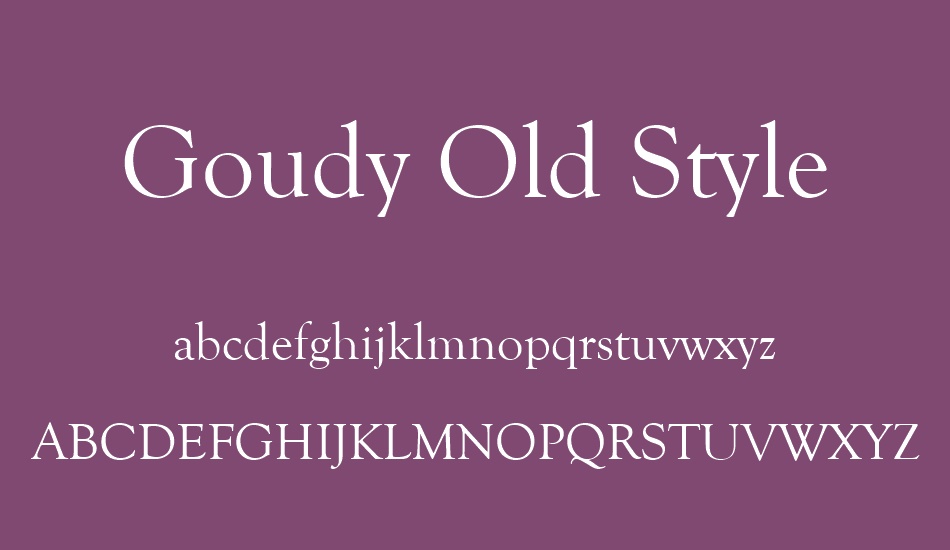
Goudy Old Style SH Font is perfect for classic book publishing, literary magazine layouts, traditional newspaper designs, vintage brand identities, heritage organization materials, classical music programs, antiquarian bookstore signage, historical society publications, prestigious award certificates, and timelessly elegant marketing communications.
Goudy Old Style SH Font is exciting because it preserves the masterful craftsmanship and timeless elegance of early 20th-century typographic excellence with its beautifully proportioned letterforms that echo the golden age of American type design and embody the scholarly refinement that defined quality publishing for generations. Its classically distinguished character design reflects both the meticulous artistry of legendary type designers and the enduring readability that makes great typography invisible yet unforgettable, making it perfect for brands honoring typographic heritage and scholarly tradition.
Goudy Old Style SH Font family includes regular, italic, bold, and bold italic weights, along with traditional small caps, old-style figures, and classical ligatures. The font family also features period-appropriate ornaments, scholarly symbols, and traditional punctuation that enhance its authentic vintage aesthetic and academic versatility.
This timelessly distinguished typeface represents the pinnacle of classical American typography heritage. Goudy Old Style SH Font Free Download allows designers to experience its scholarly elegance before making a commercial commitment. The font's ability to convey both historical authenticity and intellectual authority makes it ideal for publishing houses, academic institutions, and heritage brands seeking to establish credible, sophisticated identities rooted in typographic excellence.
Whether you're developing literary publication identities, creating academic research materials, or designing heritage organization communications, Goudy Old Style SH Font brings an unmistakable sense of typographic mastery and scholarly distinction to every project. Its classical character and publishing heritage create powerful connections that resonate with readers and audiences appreciating traditional craftsmanship and intellectual excellence.
The font's versatility excels in academic and publishing environments where tradition and scholarly credibility are paramount. Its distinguished character makes it particularly effective for universities, publishing houses, literary organizations, and cultural institutions seeking to establish authoritative relationships with educated audiences and scholarly communities who value typographic excellence and intellectual tradition.
For designers working on projects requiring genuine typographic heritage and scholarly appeal, Goudy Old Style SH Font provides an exceptional solution. Its masterful presence and comprehensive classical elements offer the tools needed for creating truly distinguished communications, while its timeless elegance ensures your designs capture the scholarly authority and typographic excellence that defines the finest traditions of American type design and literary publishing.